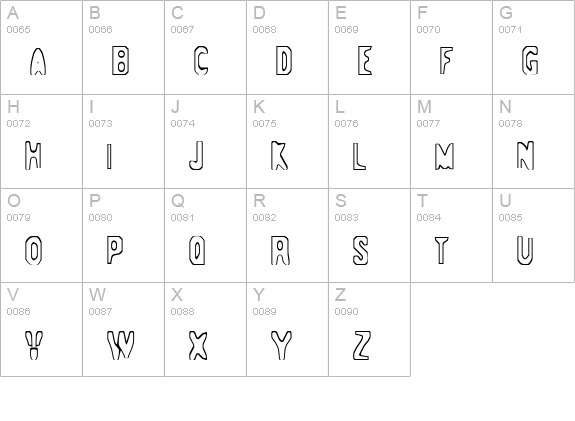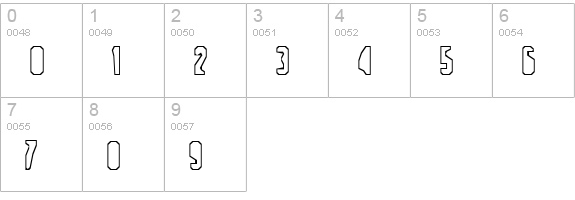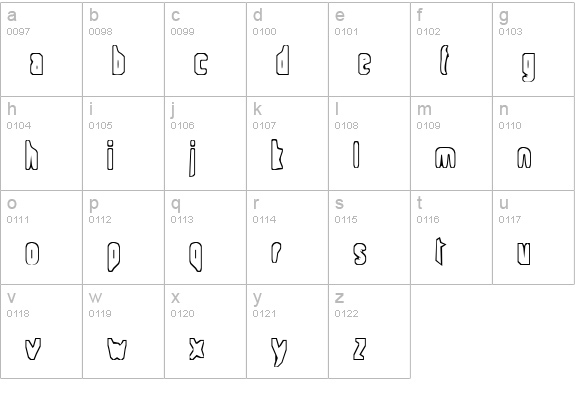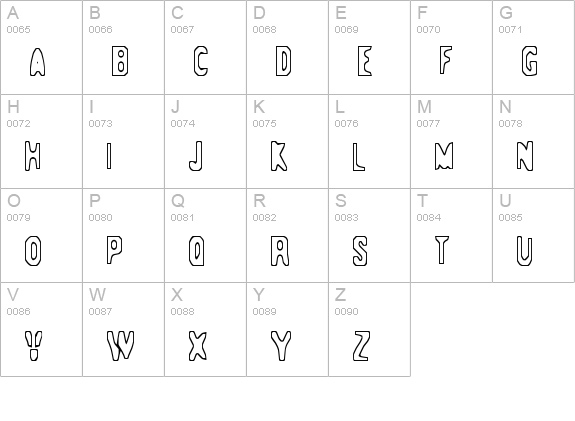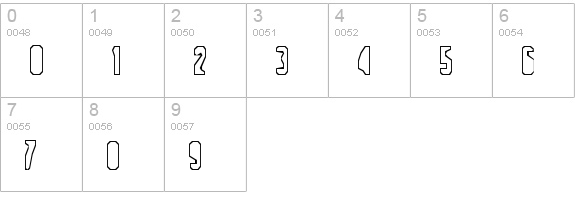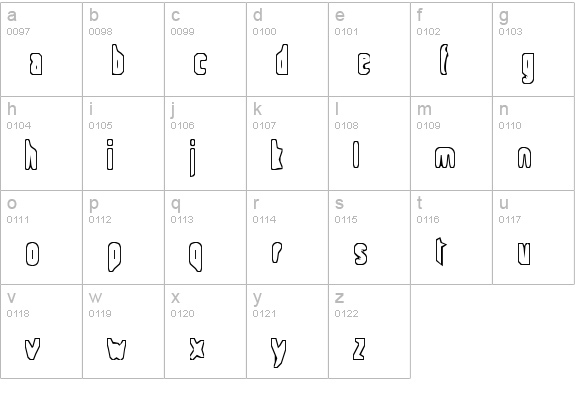
Space-ship 354 Font Details
Introducing Space-ship 354, a futuristic and innovative font that will transport your designs to otherworldly realms. This font is the perfect blend of sleek lines and bold strokes, capturing the essence of intergalactic travel and exploration. Its futuristic appeal is enhanced by its unique and captivating design, making it a standout choice for any project requiring a touch of cosmic elegance. Space-ship 354 boasts a wide range of characters, including uppercase and lowercase letters, numbers, symbols, and punctuation marks. Each character is meticulously crafted to create a seamless and visually appealing experience for your audience. Whether it's for a sci-fi book cover, a space-themed website, or a futuristic branding project, this font will undoubtedly leave a lasting impression. One of the most remarkable aspects of Space-ship 354 is that it is freely available to download at FontsMarket.com. This means that you can access and utilize this extraordinary font without any restrictions or limitations. The creators of Space-ship 354 believe in the power of creativity and the importance of making design resources accessible to all. Therefore, they have made it their mission to provide this font freely, allowing designers, artists, and enthusiasts alike to unleash their imagination and bring their visions to life. Downloading Space-ship 354 from FontsMarket.com is a simple and straightforward process. Once you have it in your design arsenal, you'll be able to explore the endless possibilities it offers. Whether you're working on a personal project or a professional endeavor, this font will elevate your designs to new heights, enabling you to stand out from the crowd and leave a lasting impression. So, don't miss out on this extraordinary opportunity to enhance your design projects with the captivating allure of Space-ship 354. Download it freely at FontsMarket.com and embark on a journey to create visually stunning and out-of-this-world designs. The possibilities are limitless with Space-ship 354 as your trusty companion in the vast expanse of design exploration.